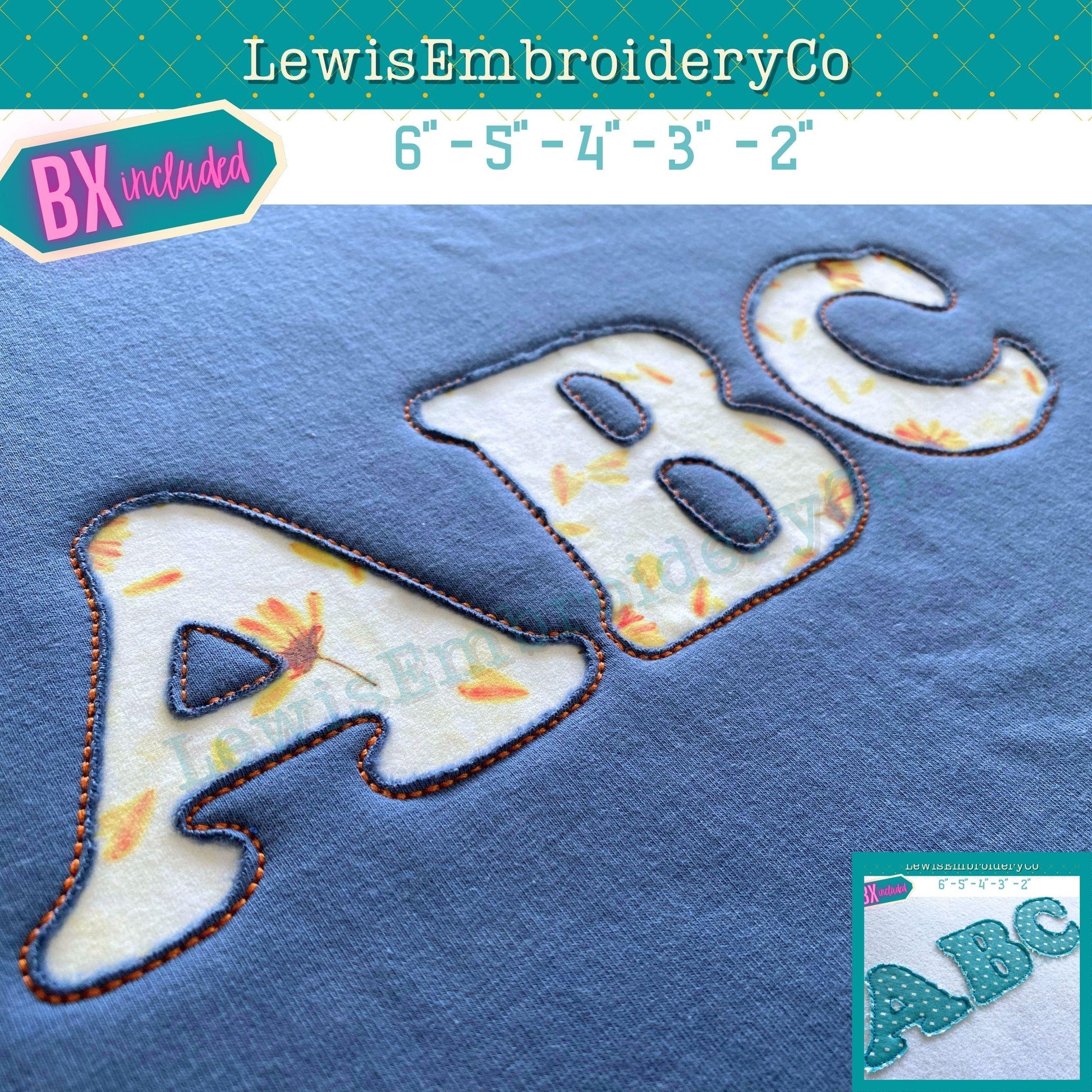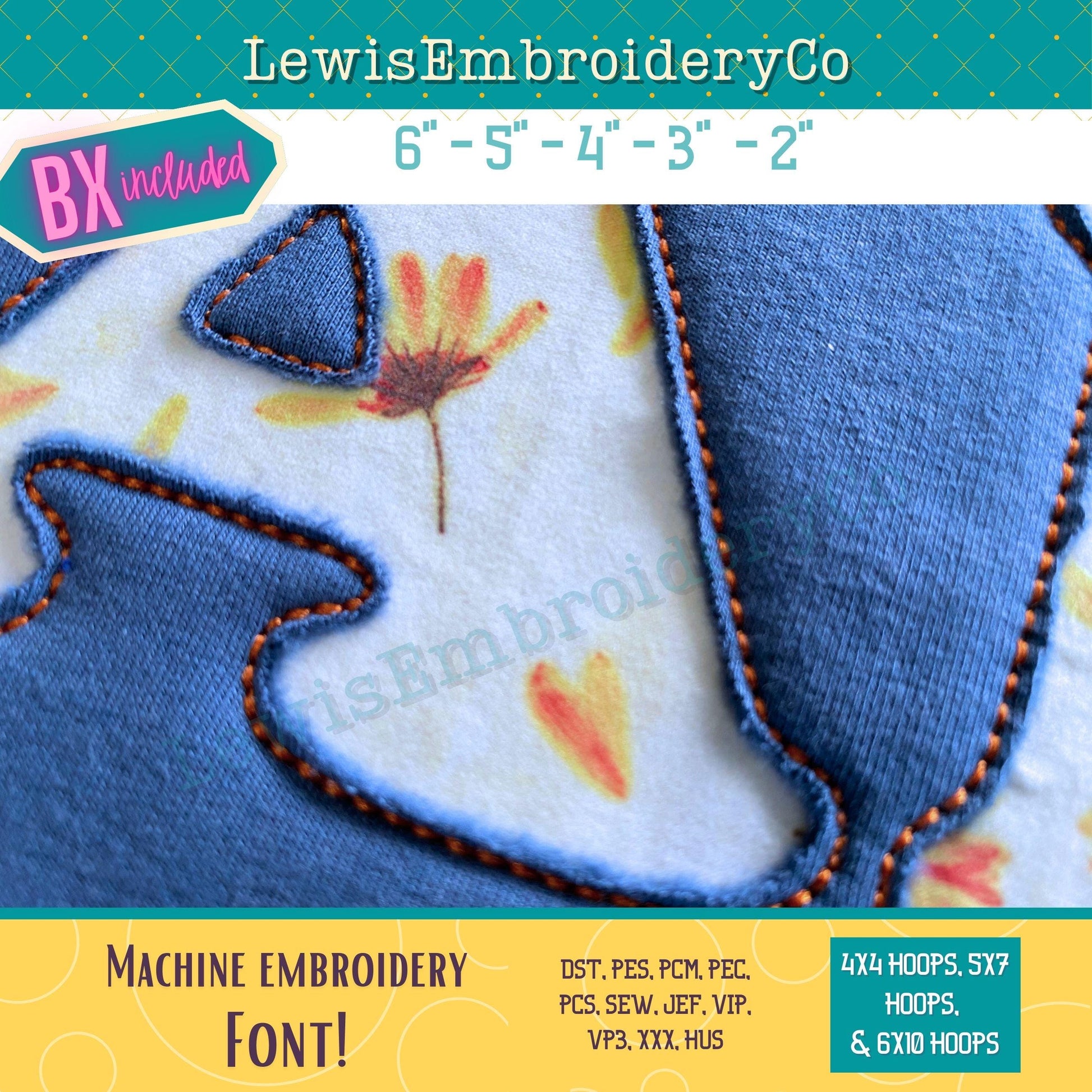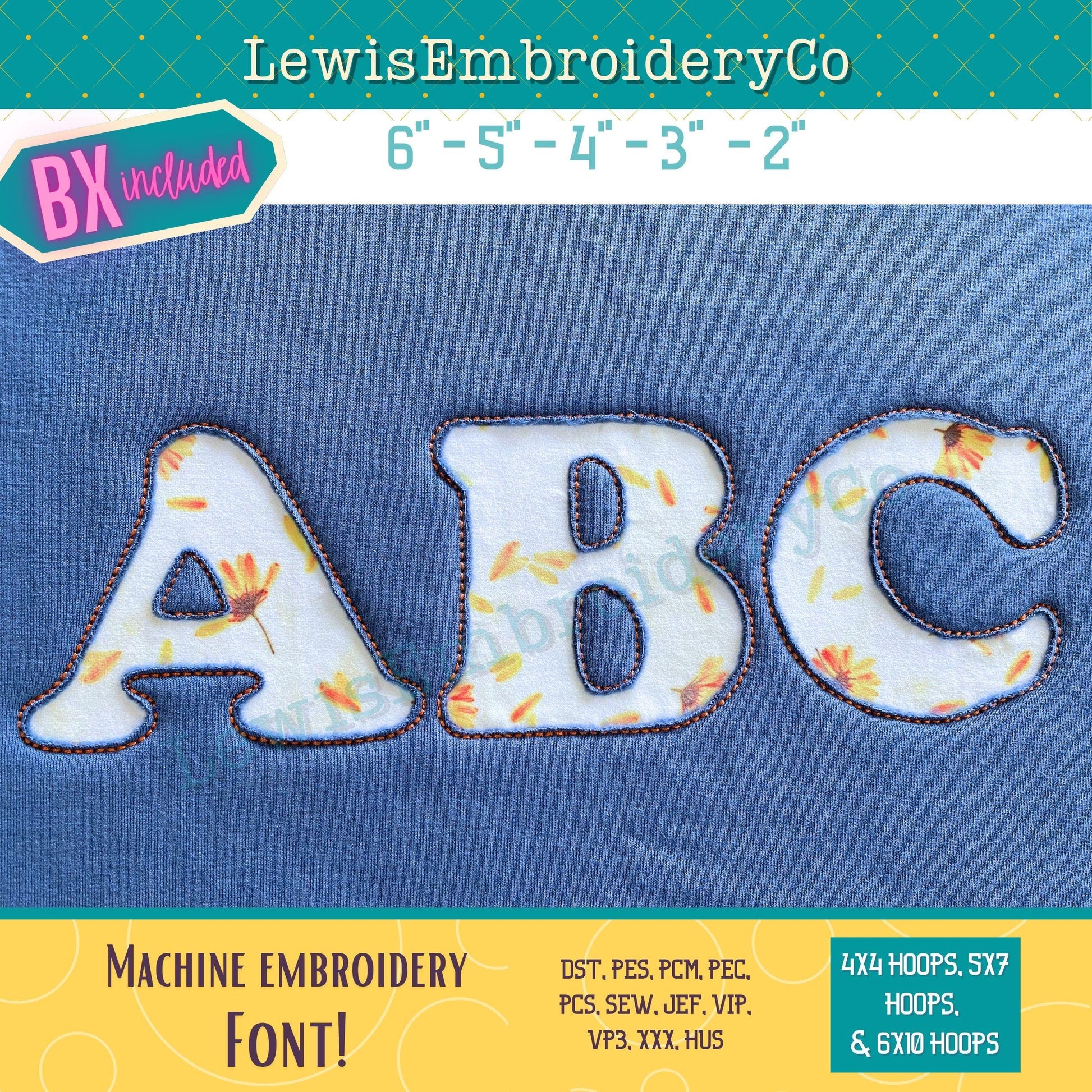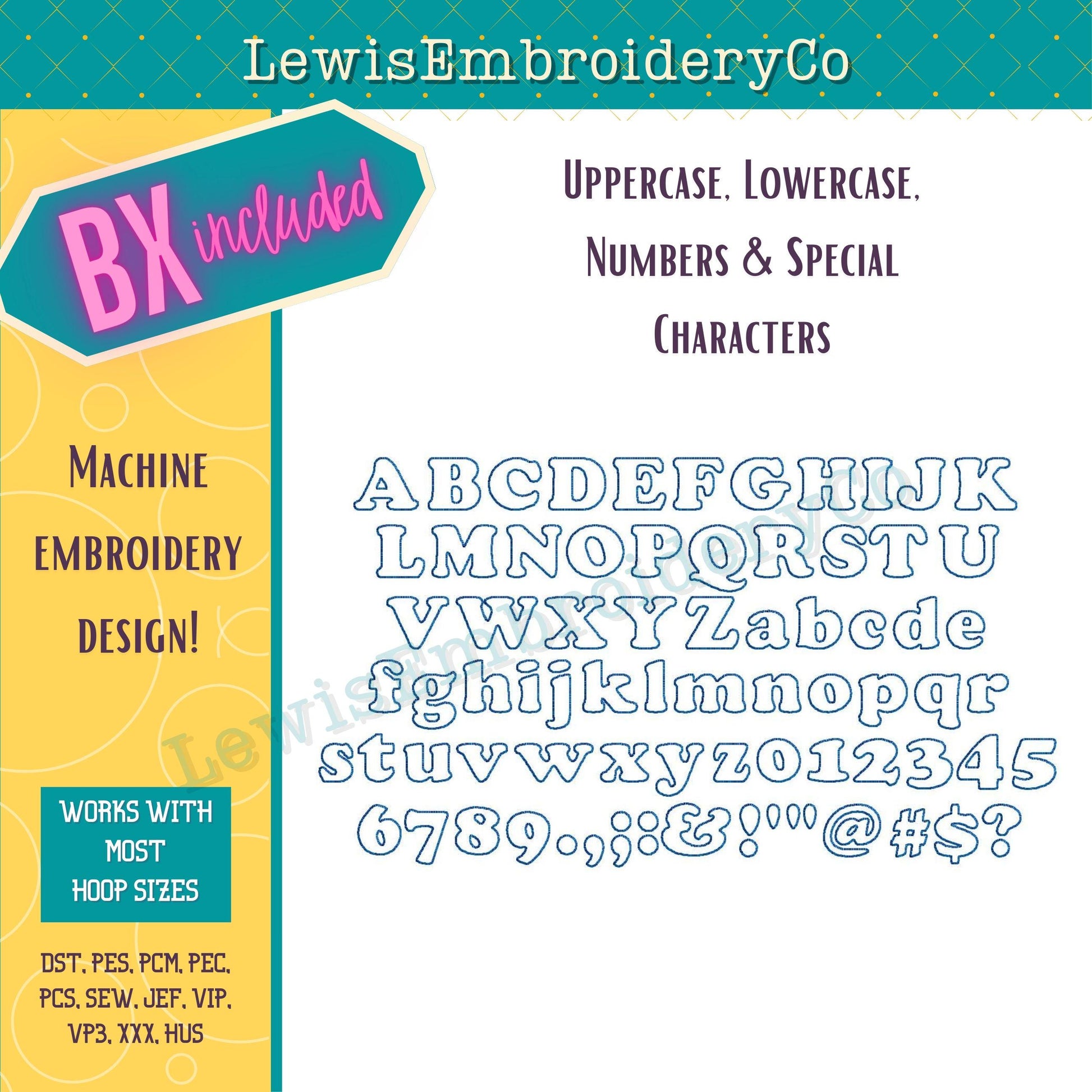
Reverse Applique, Cooper, Machine Embroidery Font - With BX - (PDF Tutorial Included)
Reverse Applique Embroidery Font - Cooper Applique Font - Raw Edge Applique Alphabet - Bean Applique Embroidery Font
This fun font will add a nice touch to any of your projects!